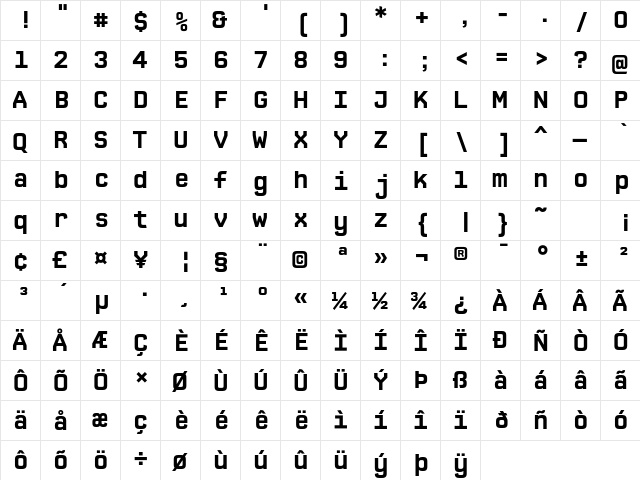
CPMono_v07 Bold
| Foundry | Tino Meinert |
| Designer | Tino Meinert |
Design Context for CPMono_v07 Typeface
CPMono_v07 brings the precise, column-aligned rhythm of monospaced typography to designs that value technical clarity and systematic order. The heavy weight commands attention and anchors typographic hierarchies.
A natural fit for code editors, technical documentation, developer-focused branding, and terminal-inspired UI.
Pro Tip: Pair CPMono_v07 with a proportional sans for UI contexts where code-style labels and regular body copy need to coexist.